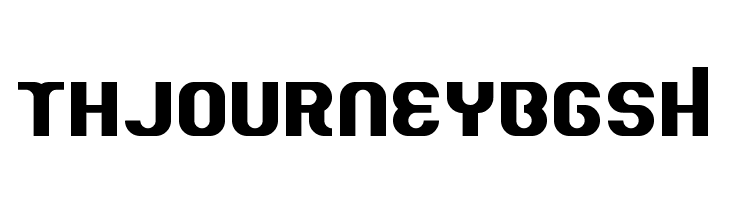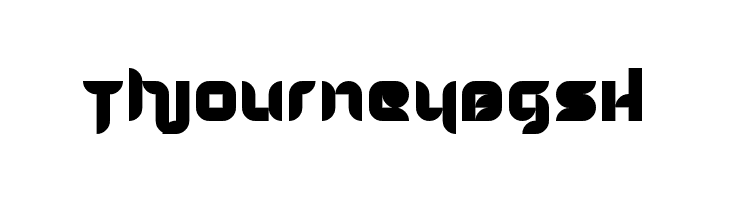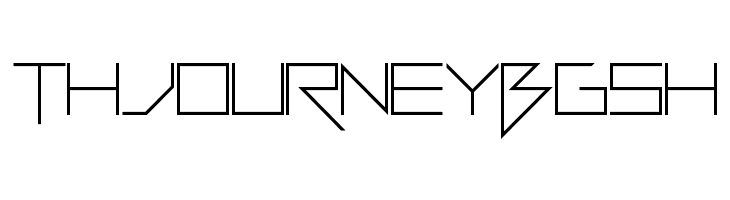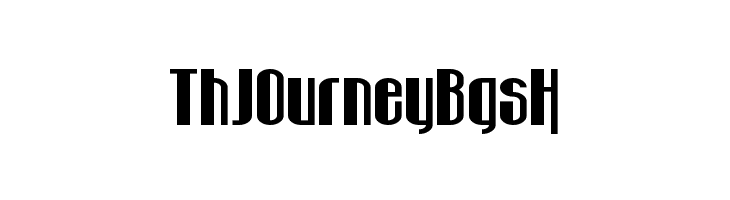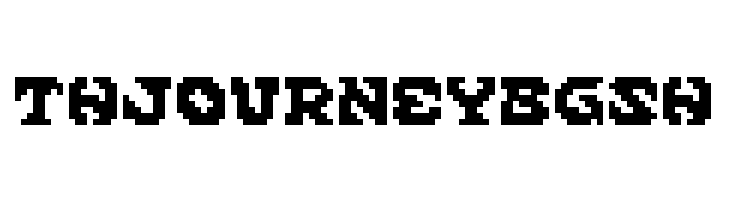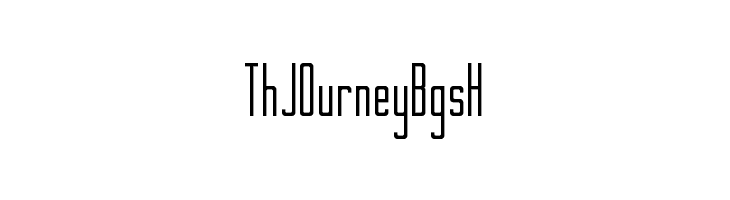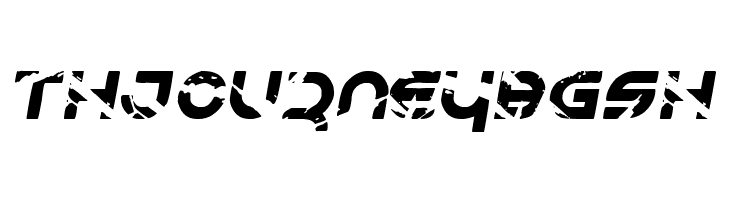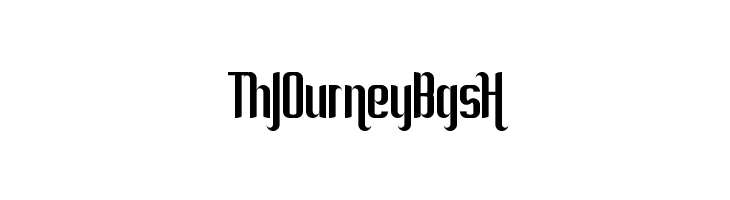
A futuristic, geometric font with rounded corners and uniform stroke width.
A bold, geometric font with a modern and impactful design.
A bold, futuristic font with geometric shapes and sharp angles.
A geometric, angular font with a futuristic and technical design.
A bold, modern font with a geometric and condensed style.
A tall, narrow, and modern geometric font with a sleek design.
A bold, futuristic font with geometric and angular shapes.
A bold, distressed font with a modern, grunge aesthetic.
A bold, modern-vintage font with high contrast and elongated letterforms.